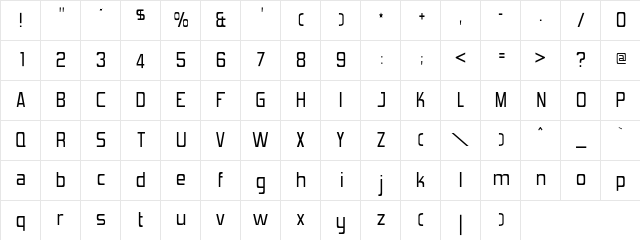
ForgottenFuturist Regular
Design Context for ForgottenFuturist Typeface
ForgottenFuturist has a distinctly futuristic character, with geometric precision and clean angles that feel at home in technology, gaming, and sci-fi contexts.
Pro Tip: Use ForgottenFuturist in combination with a neutral sans for body text. Let it define the brand voice in headlines while keeping reading comfortable elsewhere.